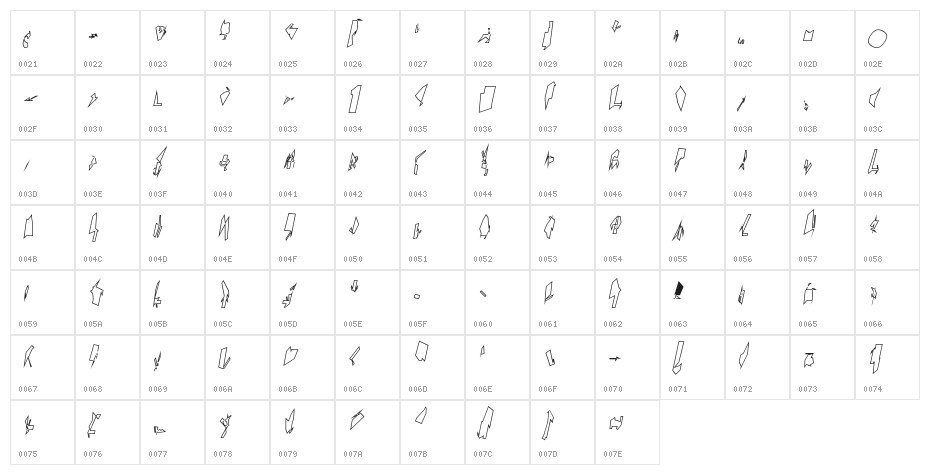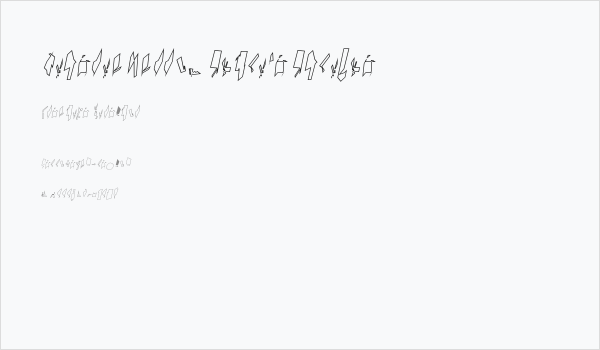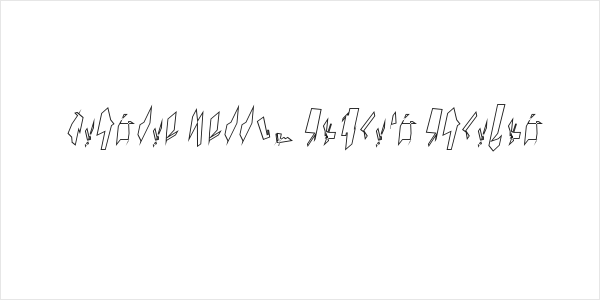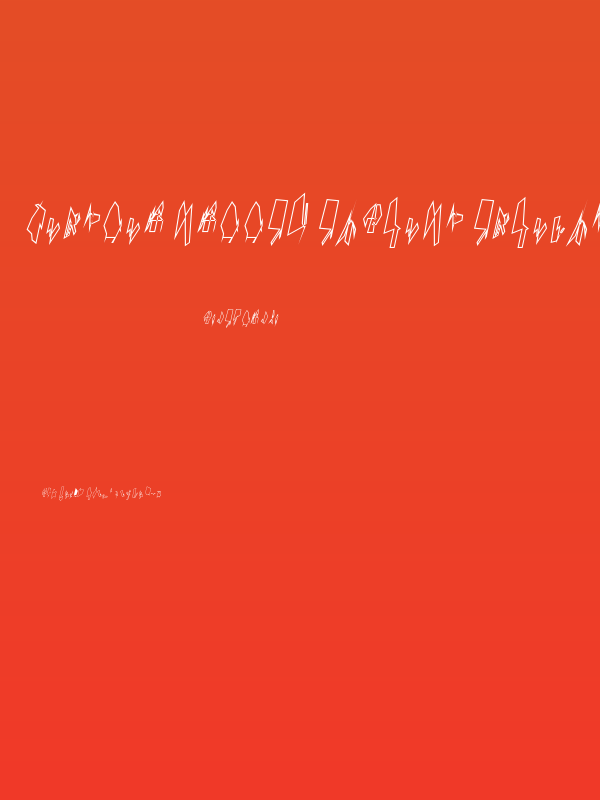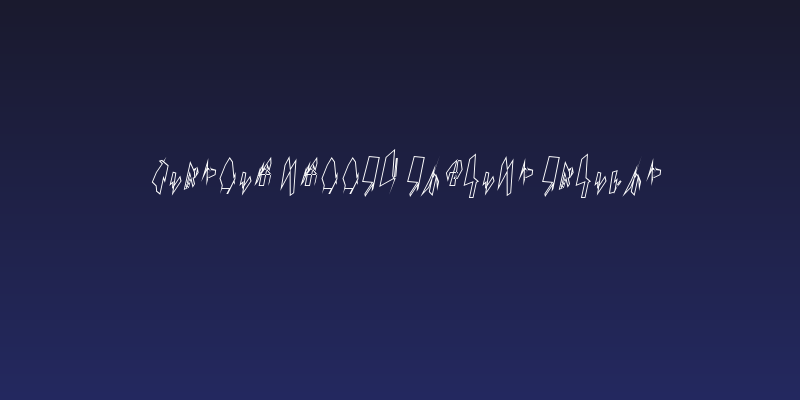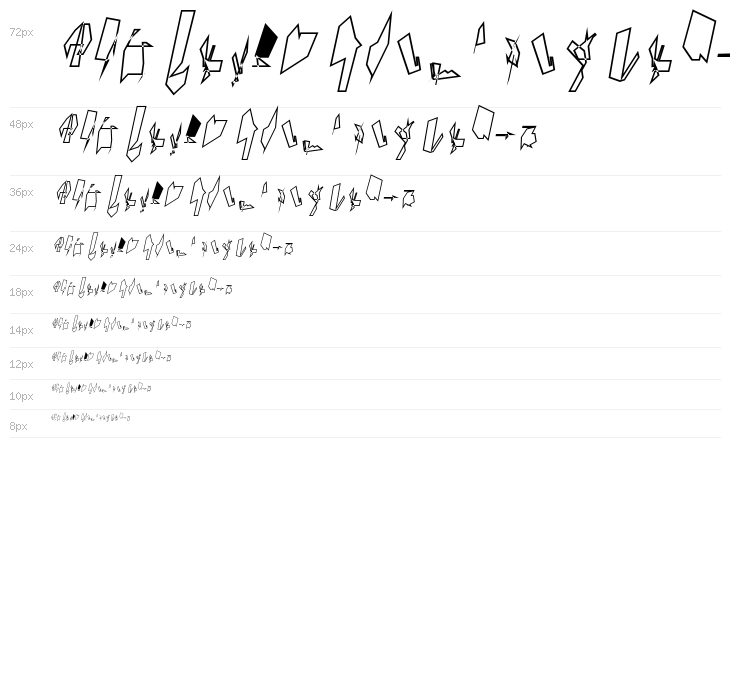
Siberia Narrow Outline Oblique Font
Siberia Narrow Outline Oblique Description
This font features a highly stylized, abstract design with sharp angles and geometric shapes. Each character is outlined with a narrow, oblique stroke, giving it a dynamic and edgy appearance. The letters are not uniform in size or shape, creating a sense of movement and energy. This font is more of an artistic expression than a traditional typeface, making it suitable for creative and unconventional projects. The overall look is modern and avant-garde, with a focus on visual impact rather than readability.
| Overall Style | Modern, Avant-garde |
| Use Case | Logos, Posters, Artistic projects |
| Proposed Projects | Ideal for artistic projects, album covers, posters, and any design that requires a bold, unconventional statement. |